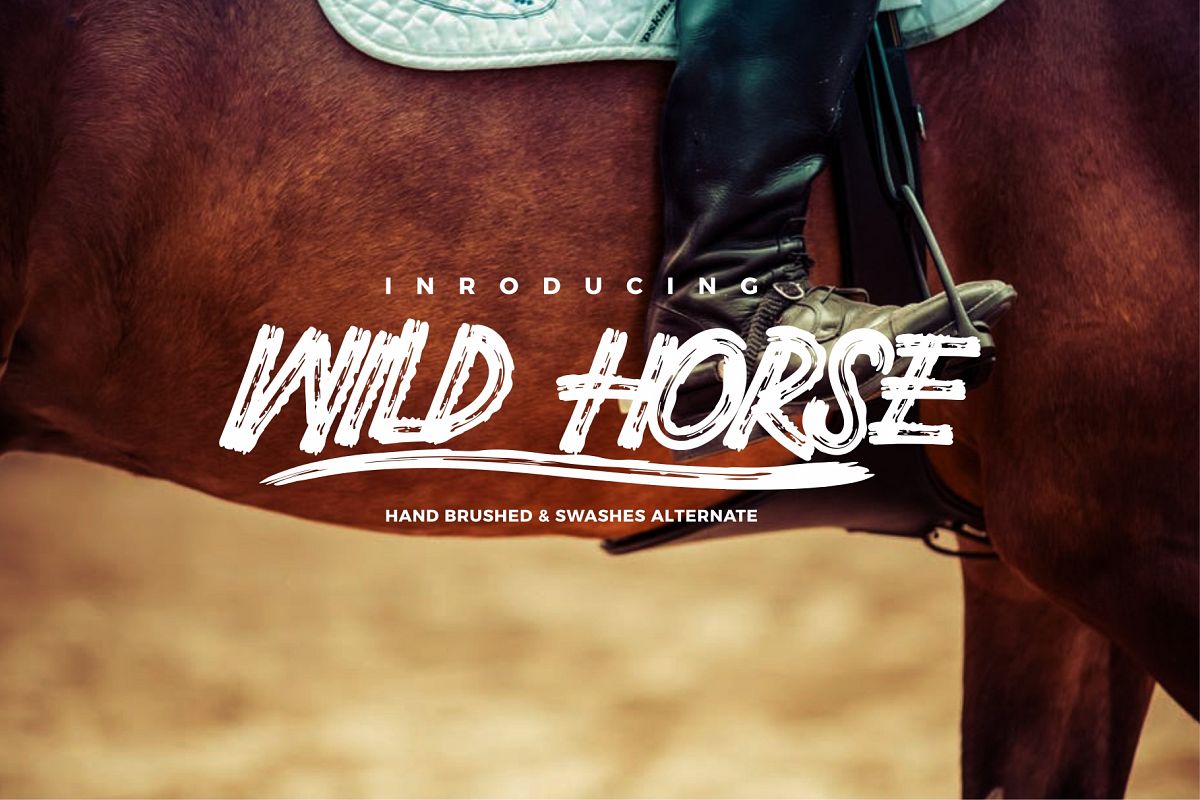
Wild Horse and Swashes
Wild Horse In brush font, very suitable for any design needs : branding, logos, handwritten quotes, product packaging, merchandise, blog design, modern advertising design, invitation, Art Quote, Home decor, Book/Cover Title, Invitation, special events, birthday, custom mug, pillow, t-shirts, any brush lettering needs and more.